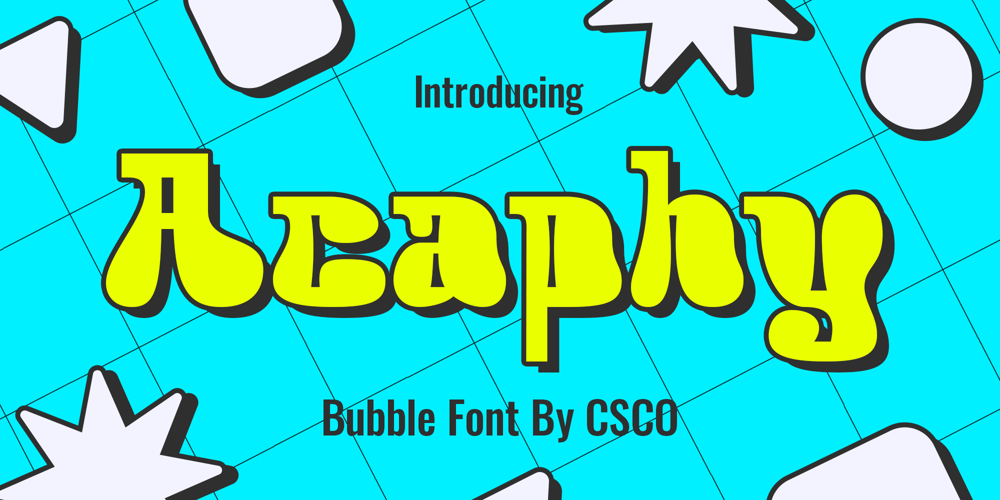
Acaphy Font Family was designed by Trio Nazzar Saputra, Wahyu Hadi Yuana and published by Craft Supply Co. Acaphy contains 8 styles and family package options. Introducing Acaphy – Bubble Font: Fun and Playful Typography for KidsPlayful and VibrantLooking for a font that radiates fun and playfulness for your kids’ themed projects? Acaphy – Bubble Font is your ideal choice! With its bubbly and rounded characters, it instantly infuses joy and excitement into your display. Clear and ReadableAcaphy – Bubble Font ensures easy readability, making it perfect for young readers. Its simple letterforms help children recognize and understand text effortlessly. Whether it’s educational materials, invitations, or posters, this font does the job brilliantly.